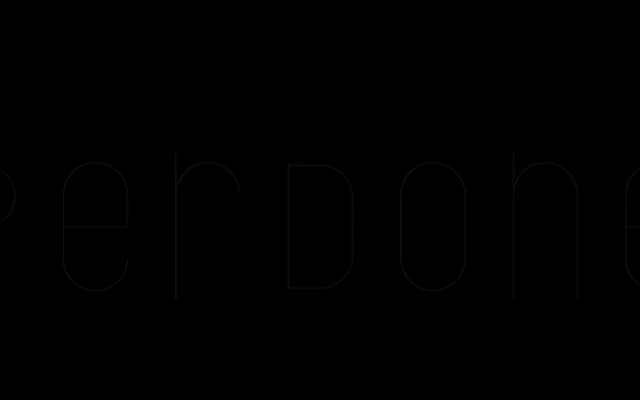
Boymans
Radim Pesko · 2003
A layerable display typeface created for Museum Boijmans van Beuningen's identity, drawing on Lance Wyman's 1968 Mexico City Olympics lettering.
Designed in 2003 by Radim Pesko as part of an identity system developed with Mevis & Van Deursen, Boymans takes its formal cues from Lance Wyman's geometric Mexico City Olympics type. Ten weights each come in three line variants — single, double and triple — which can be combined, layered or coloured to produce an extensive range of graphic effects. The typeface is not available for licensing, remaining a bespoke commission for the Rotterdam museum.
Inspired by Lance Wyman's 1968 Mexico City Olympics lettering, Boymans uses a modular, geometric construction with layerable single, double, and triple line variants — firmly placing it in the display category with an op-art, experimental character.